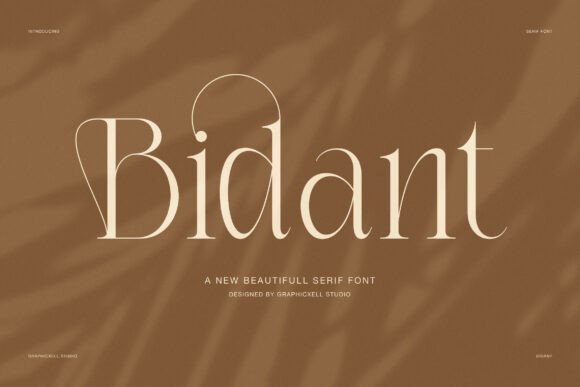
The Elegant Bidant Font: A Designer’s New Best Friend
I’ll never forget the design project that led me to discover the Bidant font. I was working on a luxury brand’s brochure, and my client was adamant that the typography had to convey a sense of calm sophistication. I scoured font libraries, but nothing seemed quite right – until I stumbled upon Bidant. Its elegant serifs, soft curves, and gentle contrast immediately won me over. I knew I’d found the perfect fit for my project, and I’m excited to share my love for this font with you.
An Honest Review: What I Love (and What to Watch Out For)
Bidant has quickly become a go-to font in my design arsenal, but like any font, it’s not without its quirks. Here’s the lowdown:
• ✨ Elegant serif design that exudes calm beauty and refinement
• ✅ Smooth, organic letterforms that feel confident and approachable
• ✅ Strong readability, making it perfect for both print and digital layouts
• ✅ Works beautifully for headlines, body text, and even captions
As for quirks, I’ve noticed:
• ⚠️ Some users may find the font’s subtle contrast a tad tricky to work with on smaller text sizes
• 🤔 Limited availability of certain OpenType features in certain design software
A Practical Guide: Using Bidant in Your Designs
The Story Behind Bidant
Bidant was designed with the goal of creating a font that embodies calm beauty, balance, and refined clarity. Inspired by editorial typography and natural forms, the font’s creator aimed to blend classic serif structure with soft curves and gentle contrast. The result is a timeless look that feels modern, warm, and thoughtful.
What makes Bidant unique? Bidant’s unique blend of classic serif structure, soft curves, and gentle contrast sets it apart from other fonts.
Is Bidant suitable for body text? Yes, Bidant’s strong readability makes it suitable for body text, but it truly shines in headlines and titles.
Does Bidant support OpenType features? Yes, Bidant supports various OpenType features, including stylistic alternates and glyphs, which can be accessed in compatible design software.